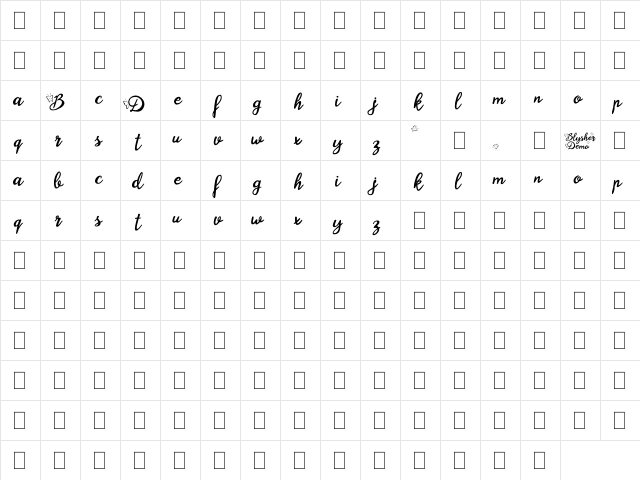
Blysher Demo
Design Context for Blysher Typeface
Blysher is a composed and adaptable typeface that performs quietly and consistently across a wide range of design contexts.